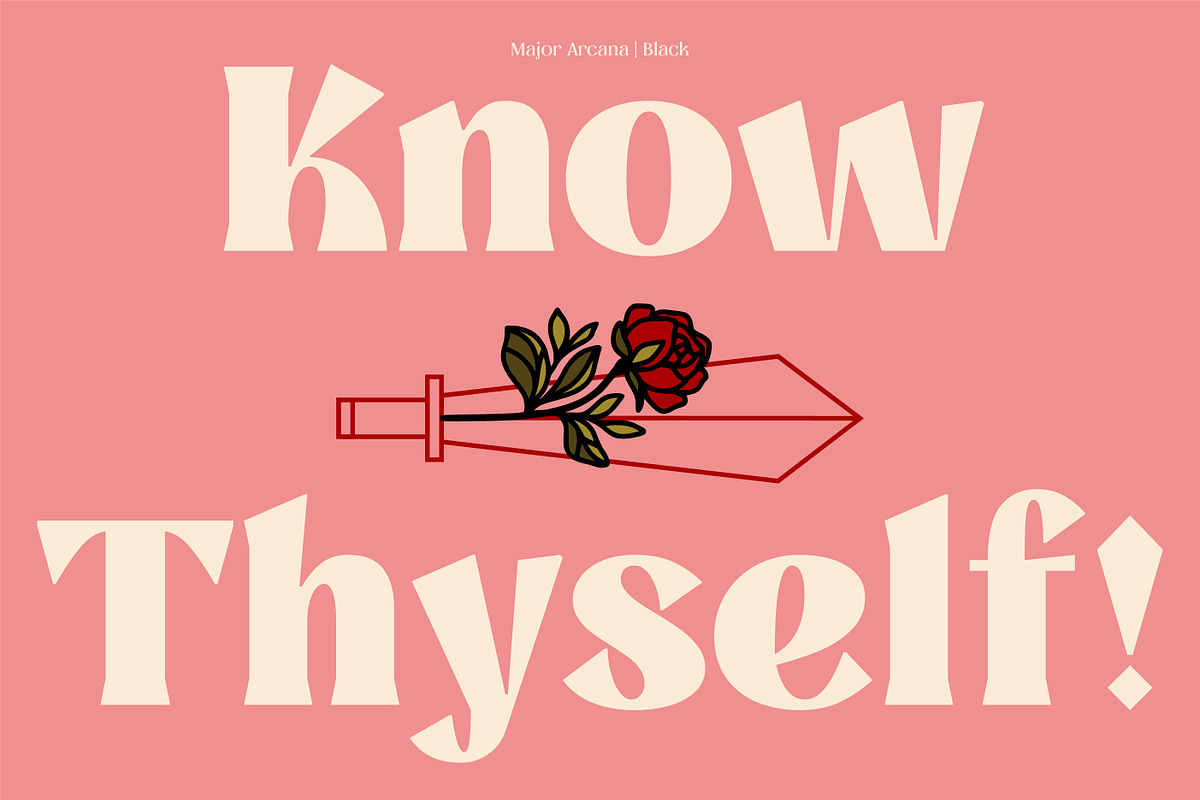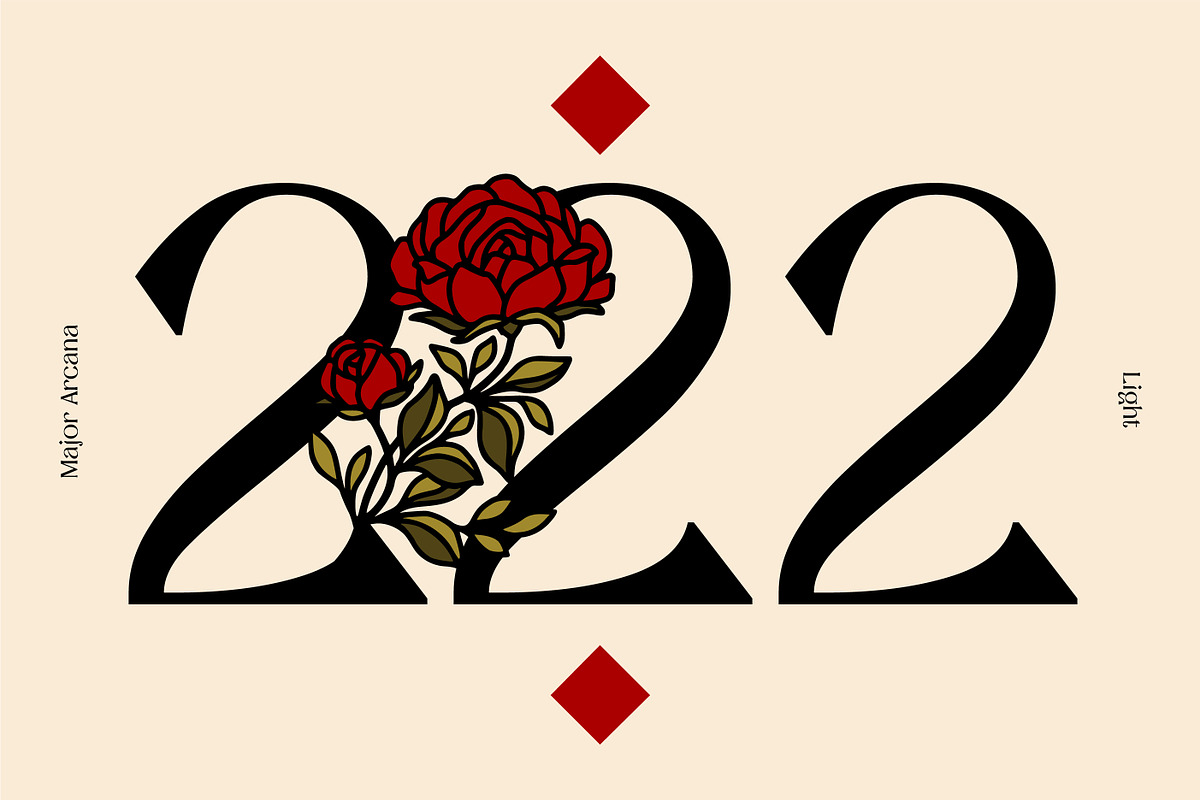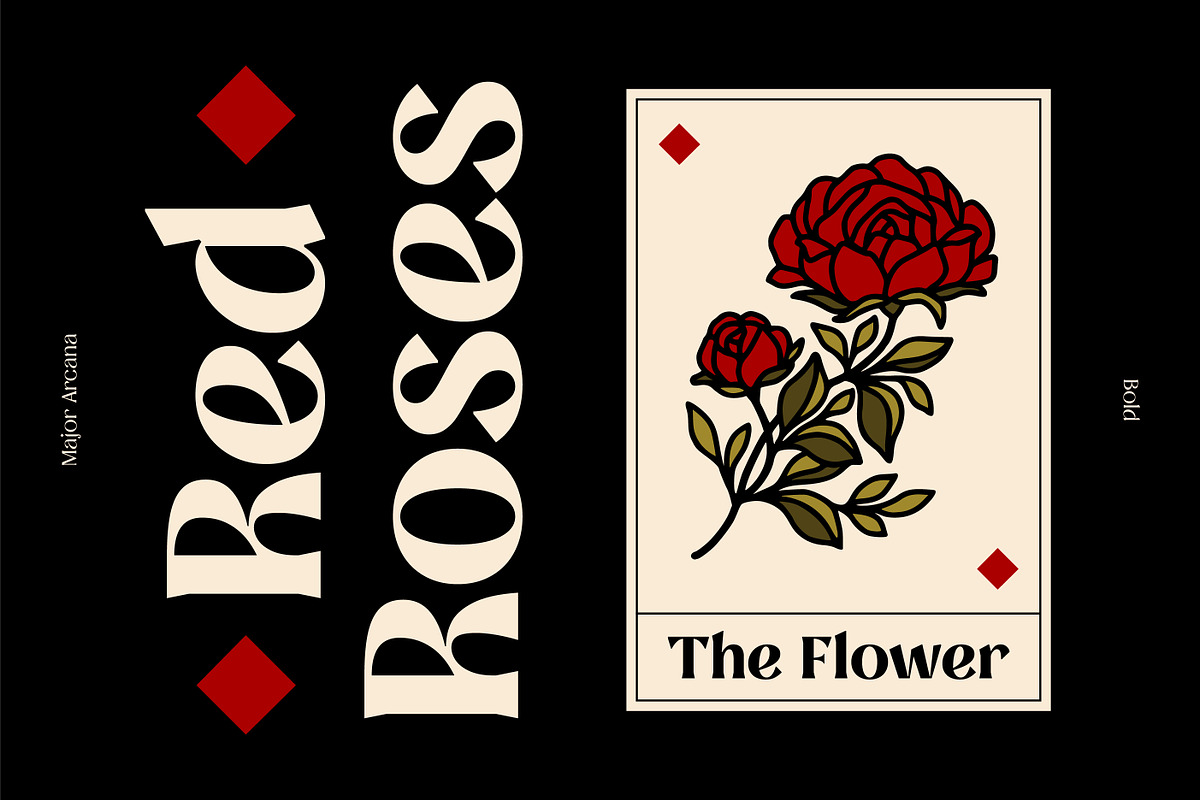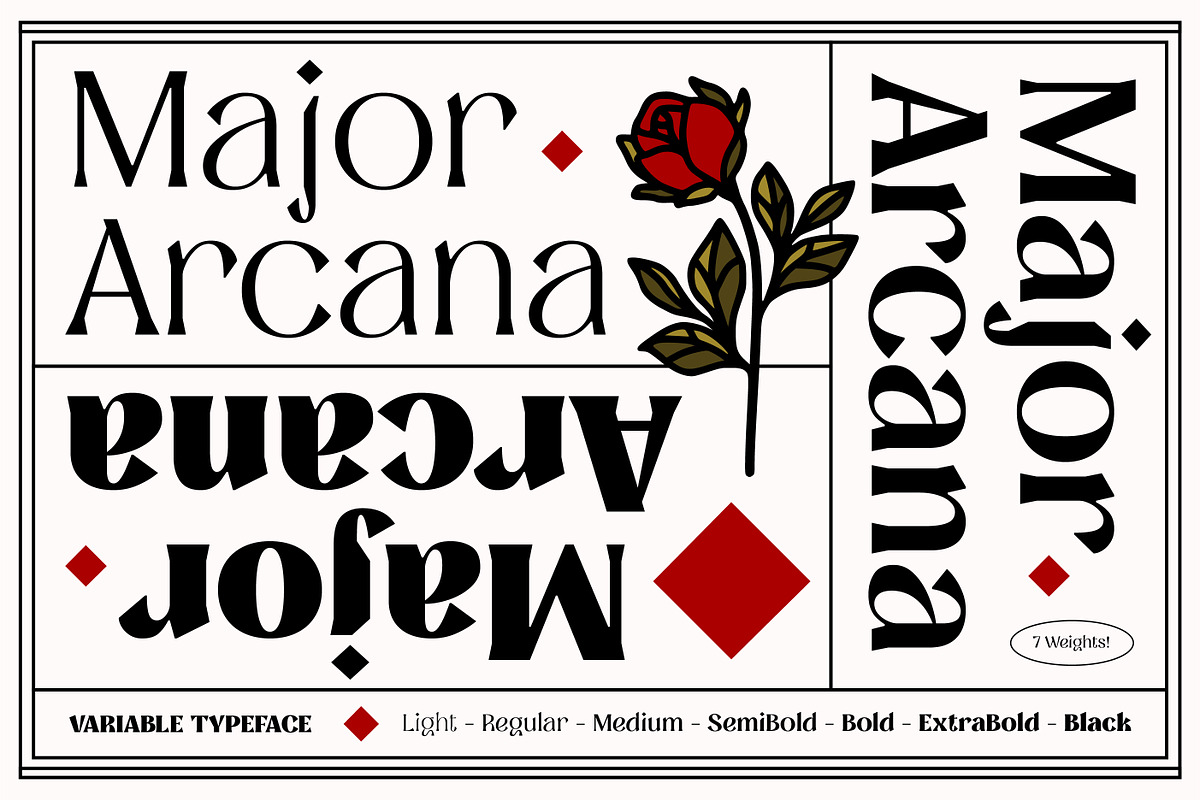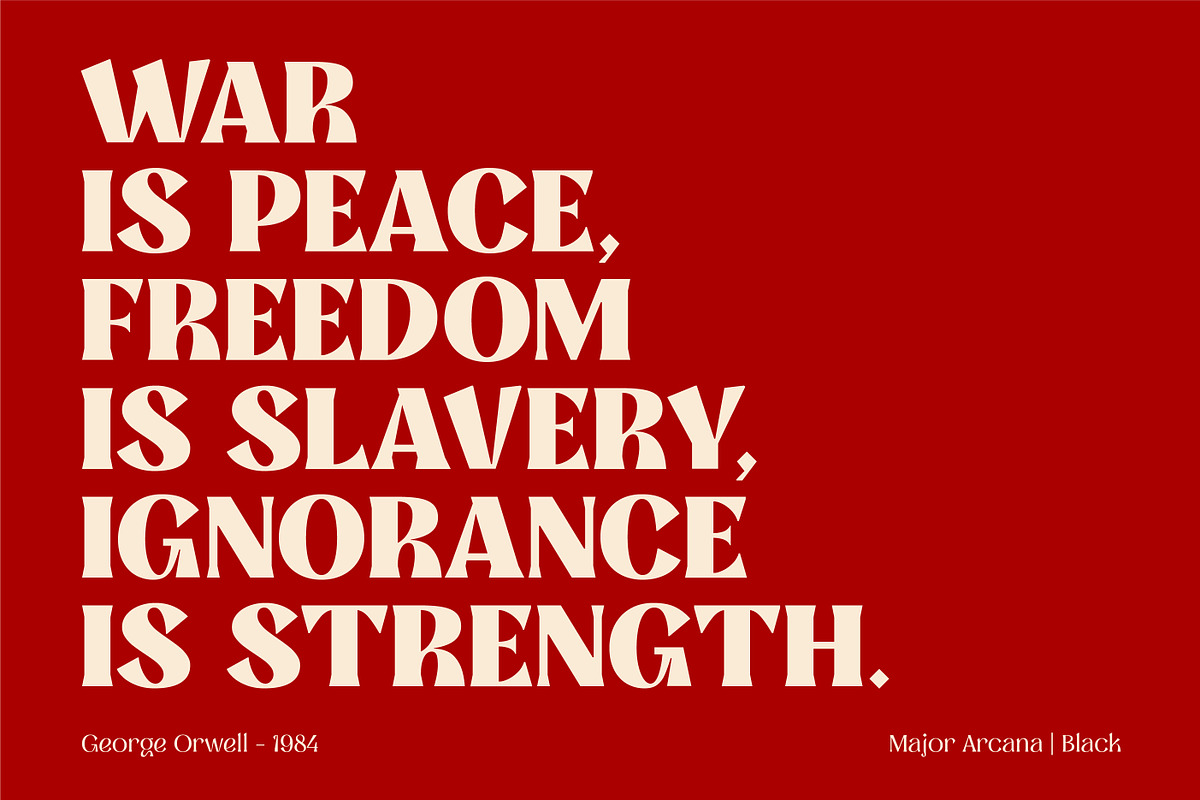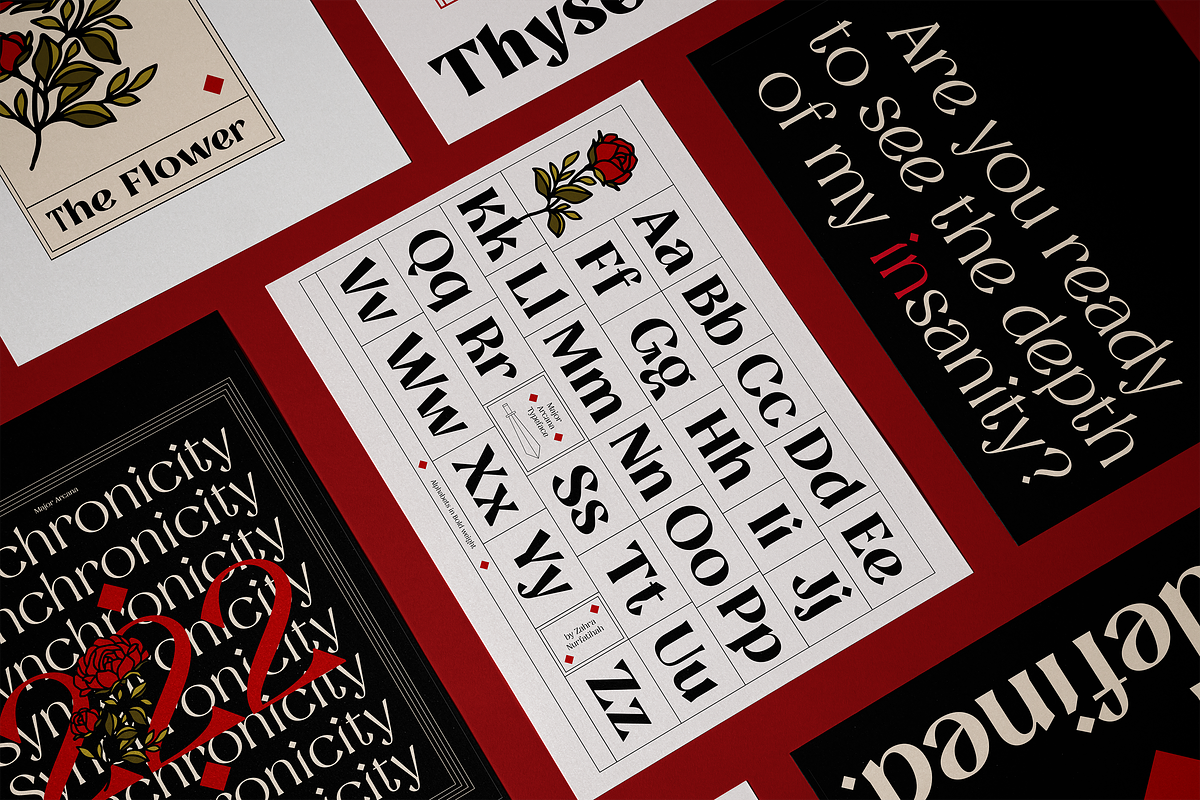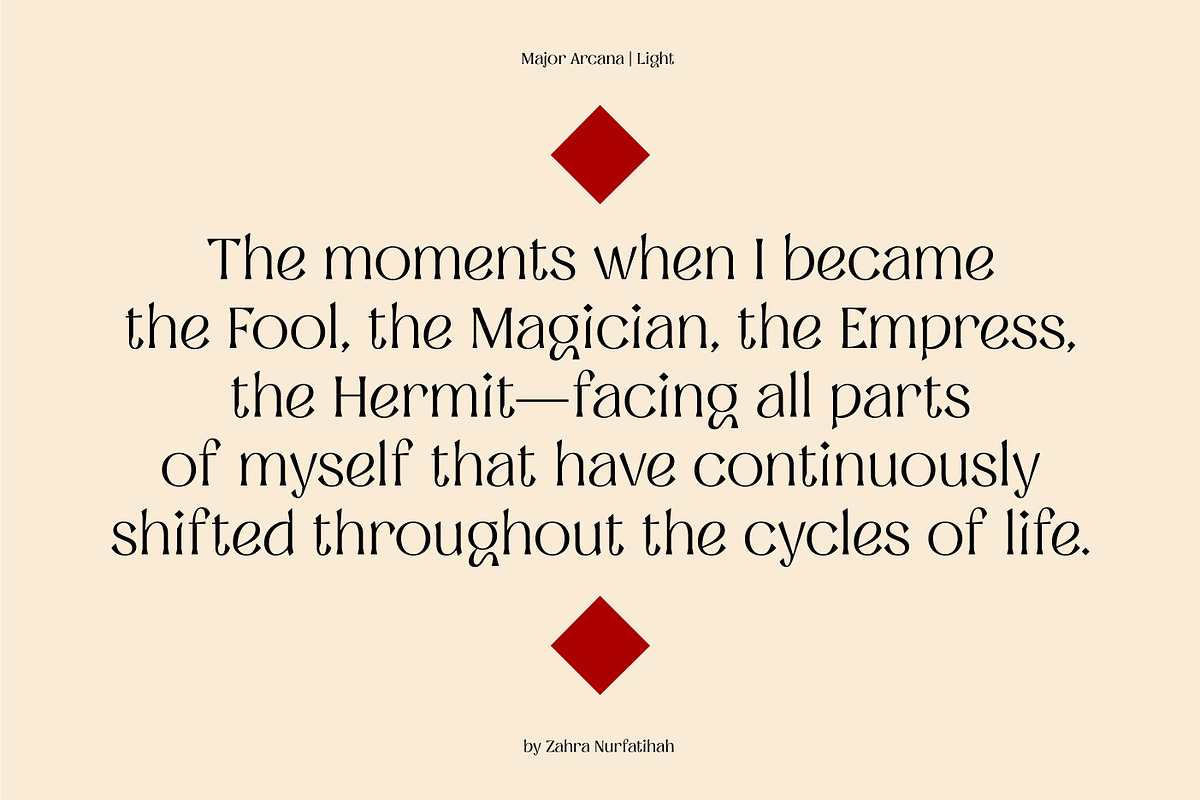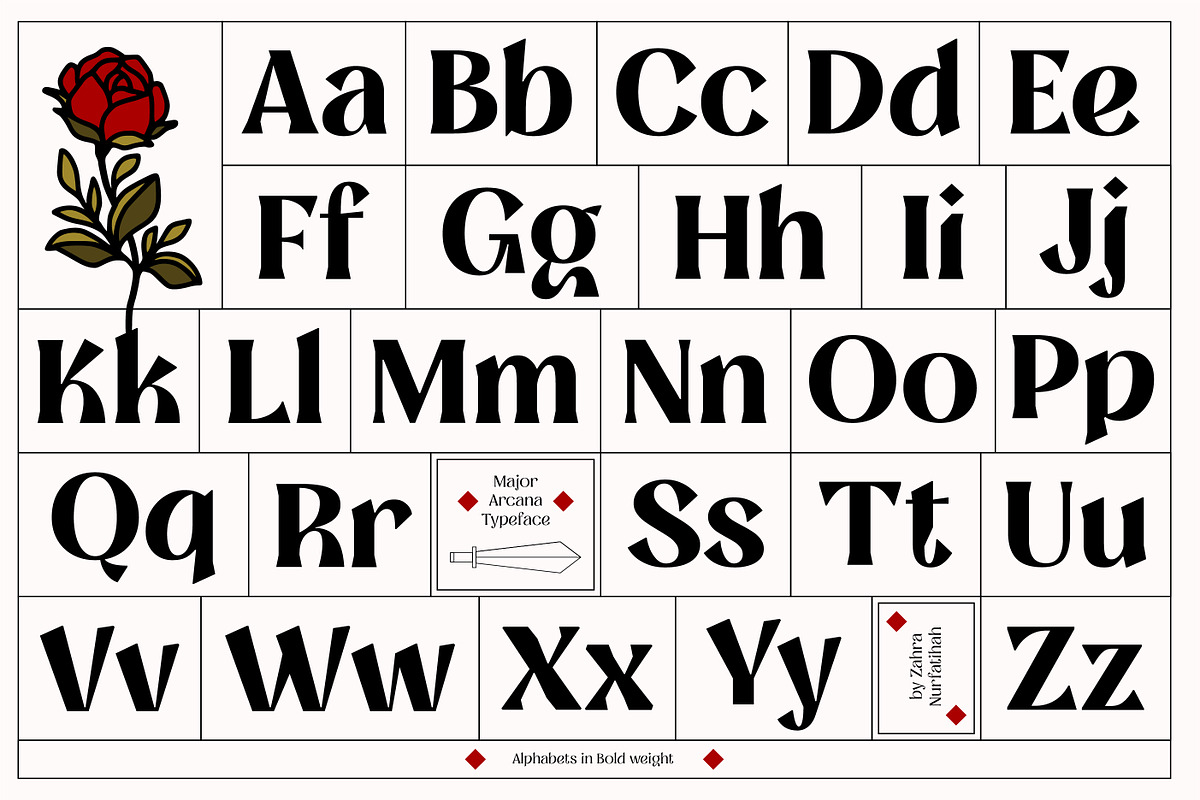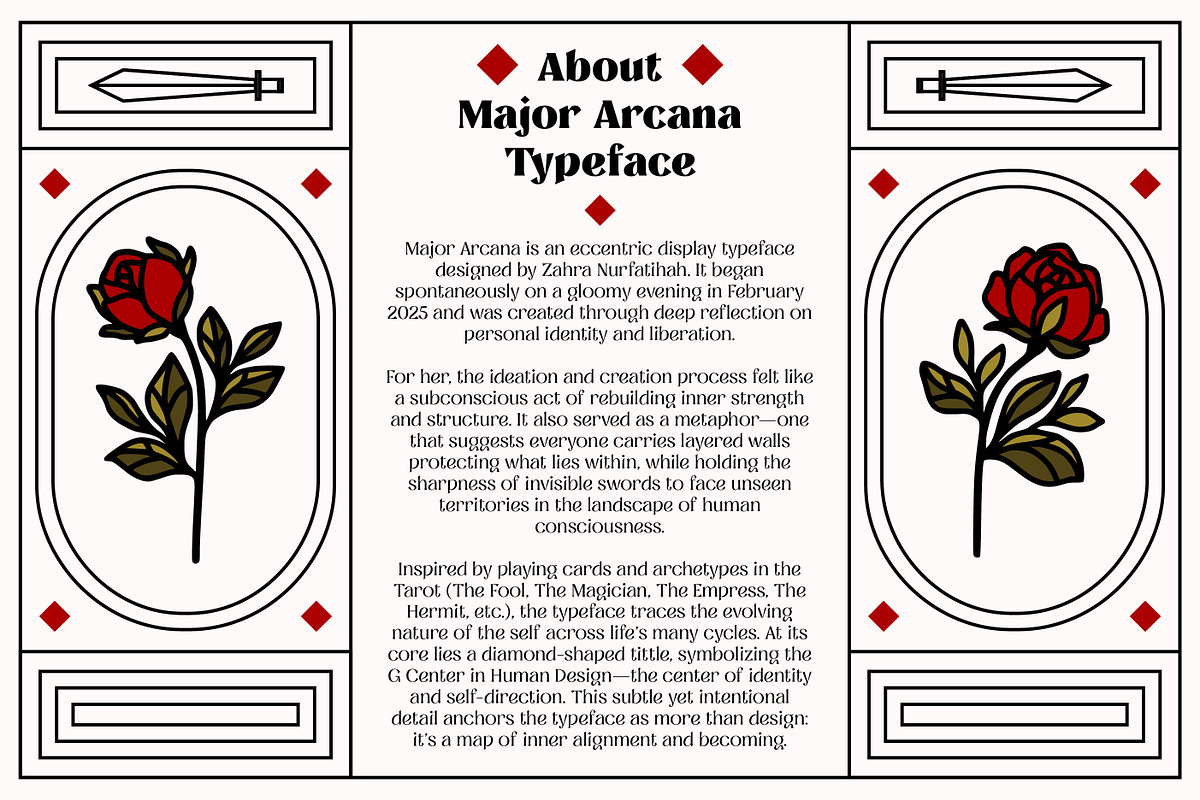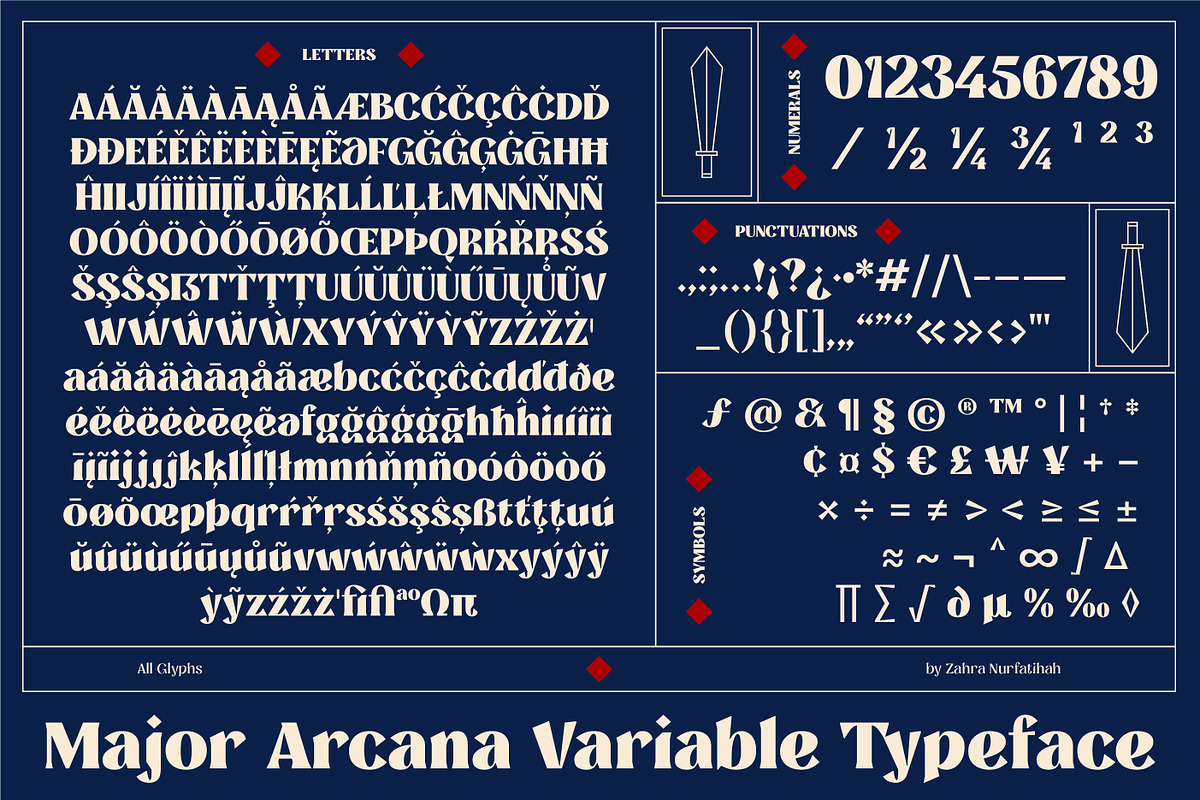
MAJOR ARCANA - Display Variable Type
Major Arcana is a display serif variable typeface with 7 weights, created to embody presence, clarity, and evolution. It’s designed for display moments where voice matters—whether in editorial, branding, or personal storytelling—offering timeless usage across expressive and intentional design.
Inspired by playing cards and the archetypes in the Tarot, the typeface traces the evolving nature of the self across life’s many cycles. At its core lies a diamond-shaped tittle, symbolizing the G Center in Human Design—the center of identity and self-direction. This subtle yet intentional detail anchors the typeface as more than design: it’s a map of inner alignment and becoming.